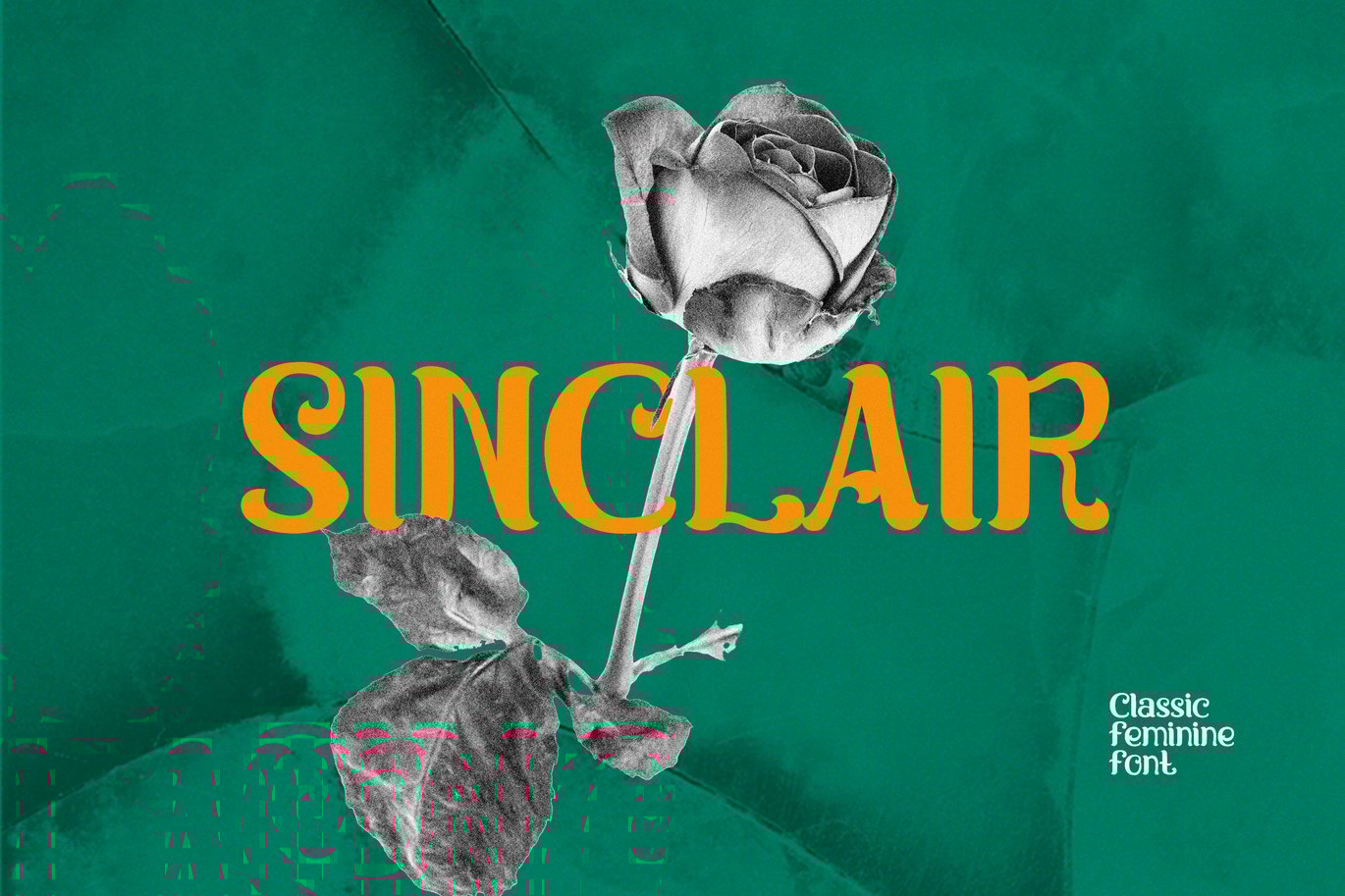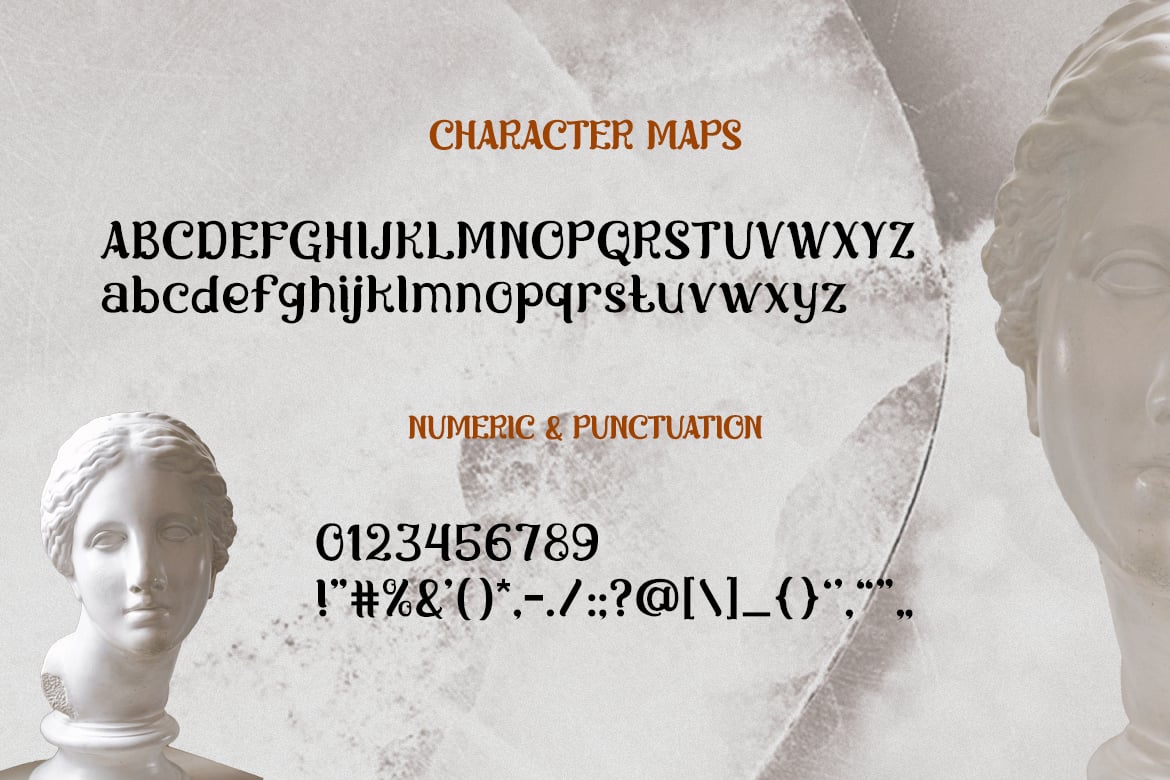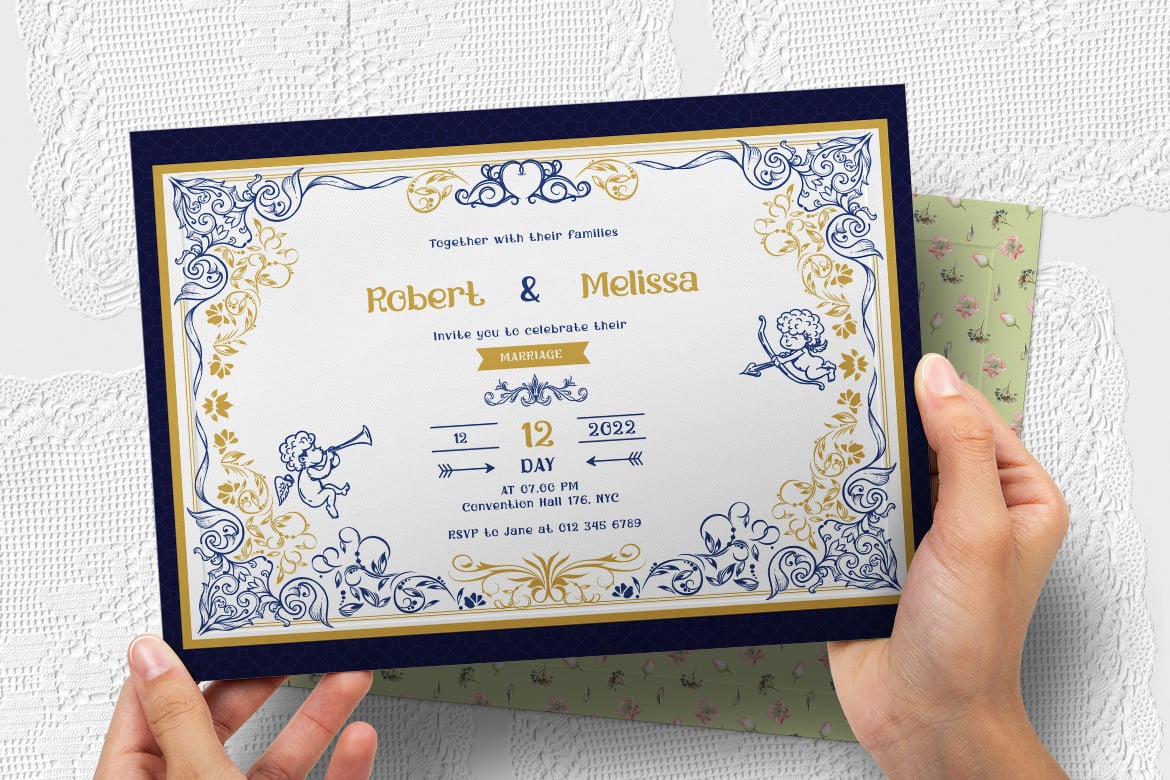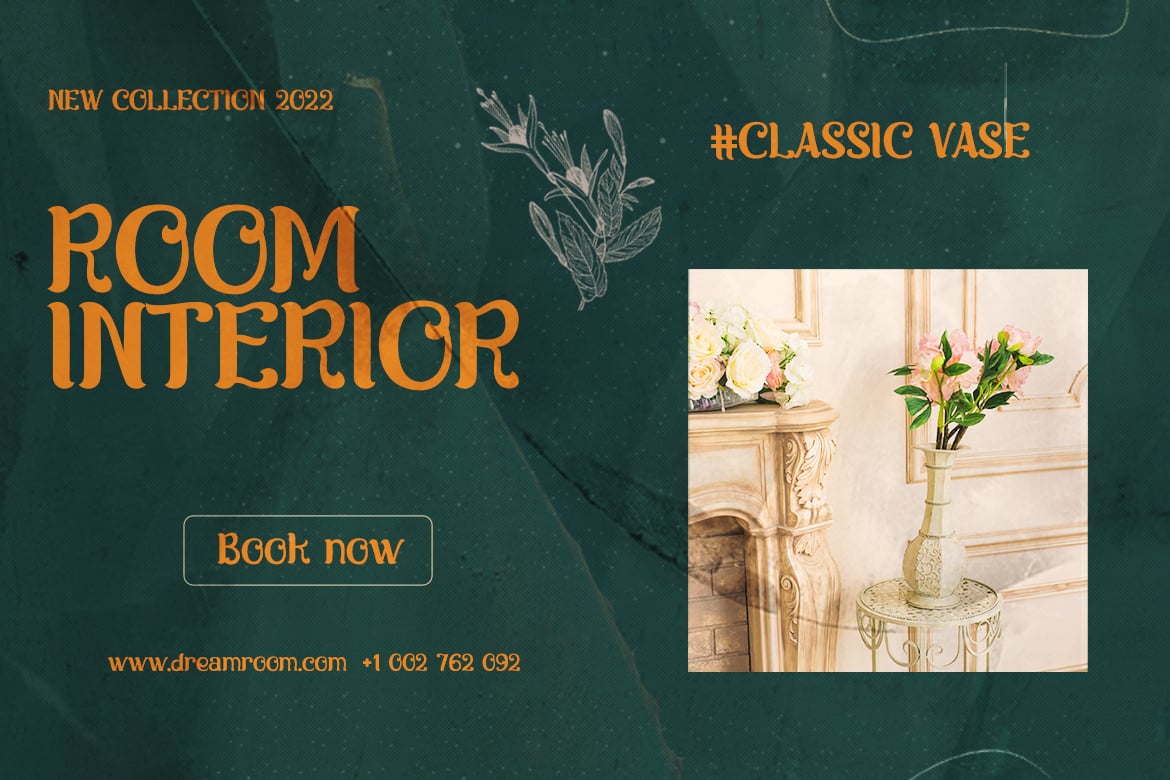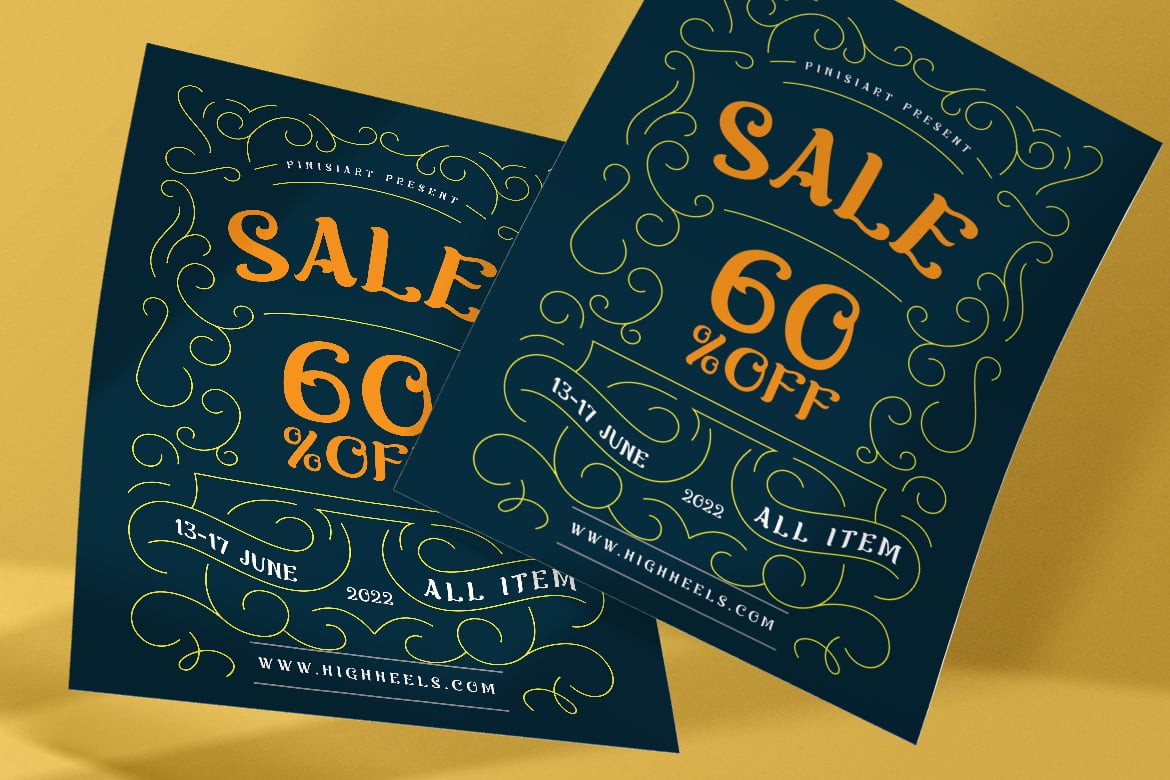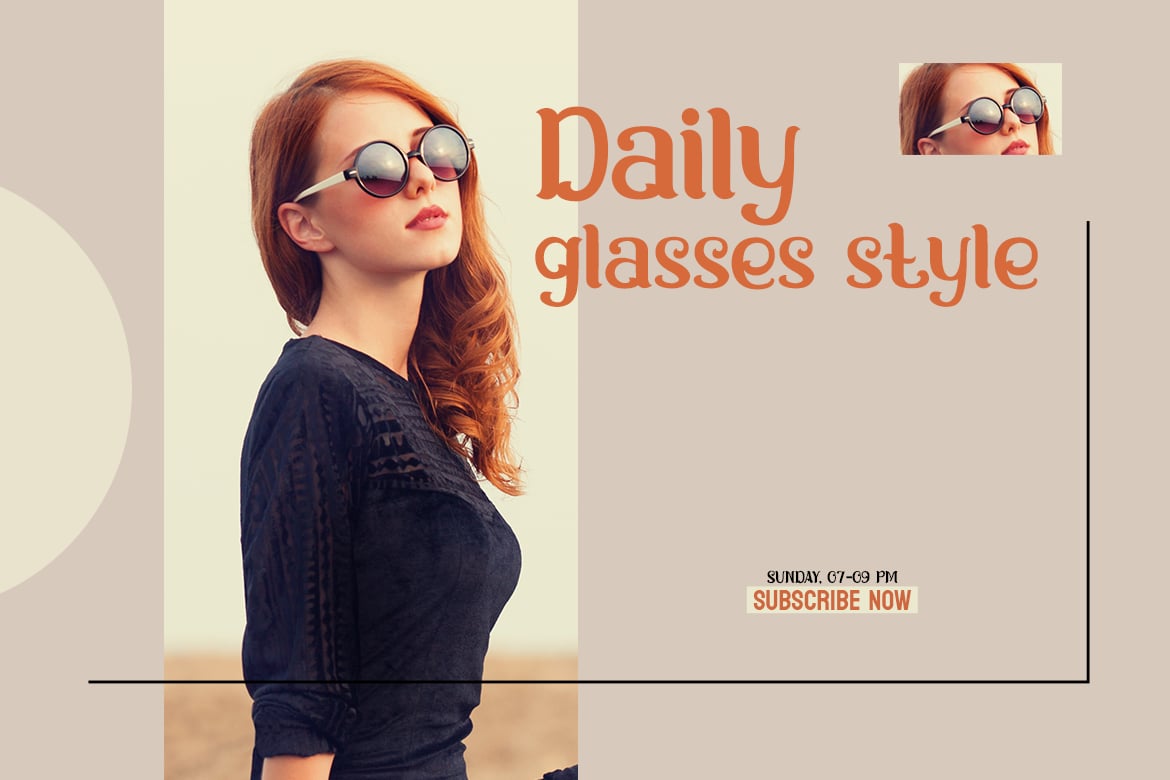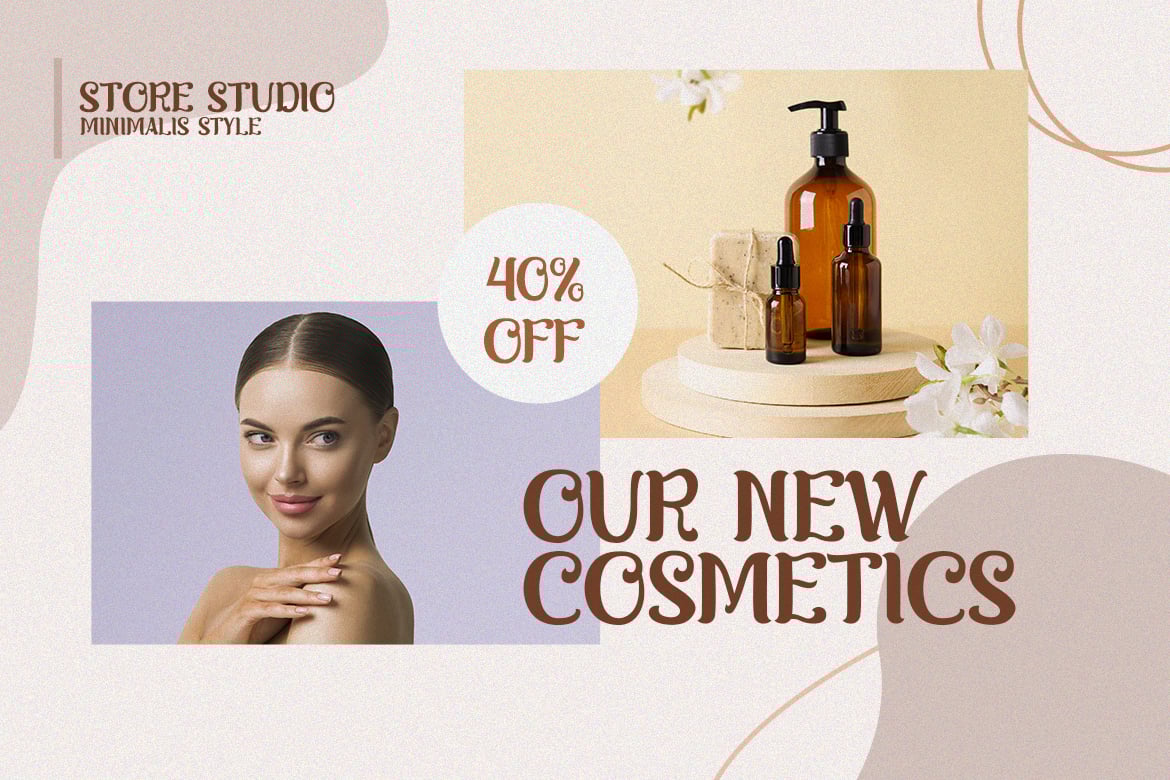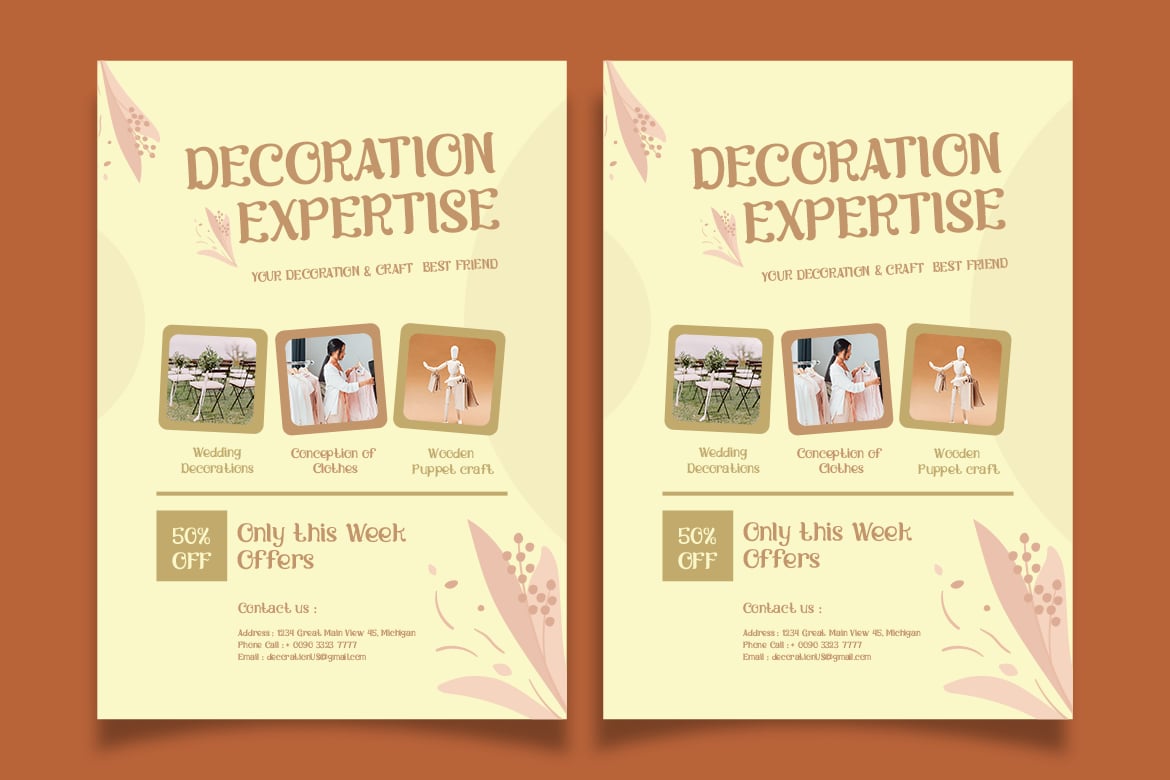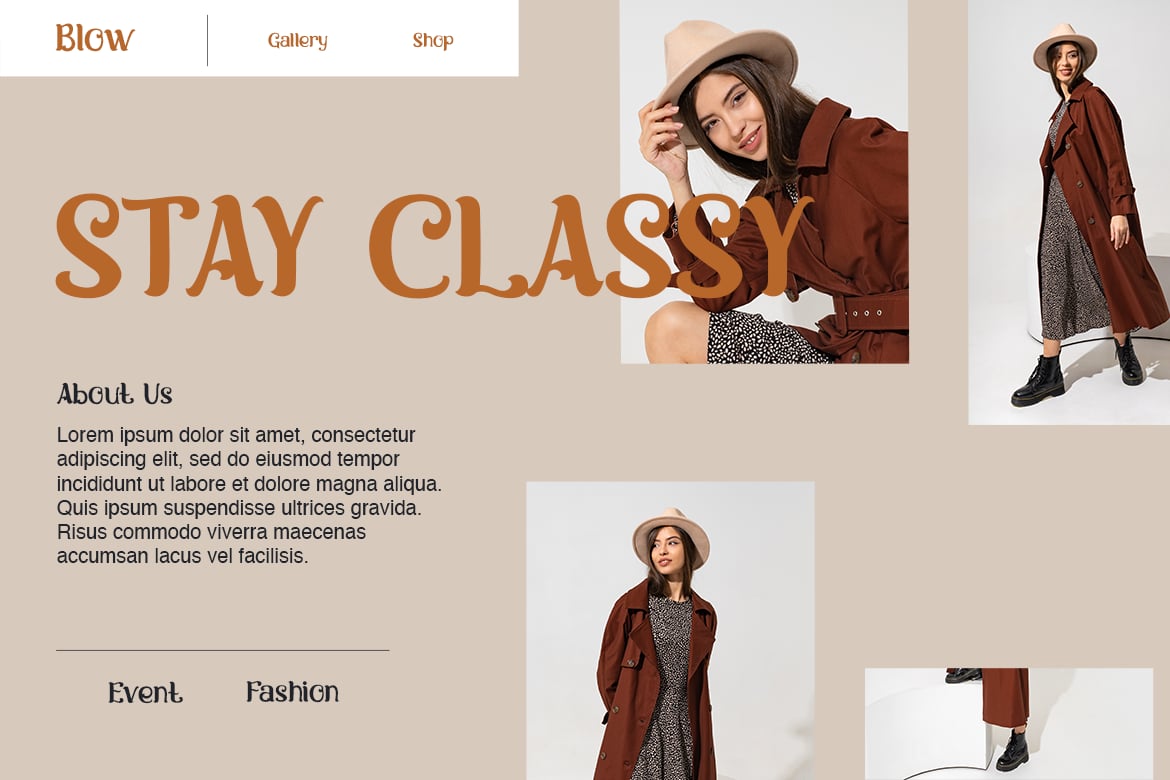
SINCLAIR – Classic Feminine Font
An elegant girly vibe serif font that emphasize the flamboyant style in it.
Suit perfectly for mature and elegant themes books market, feminine poster, stationary, school supplies font, youtube covers, youtube thumbnails, social media page covers and so on…